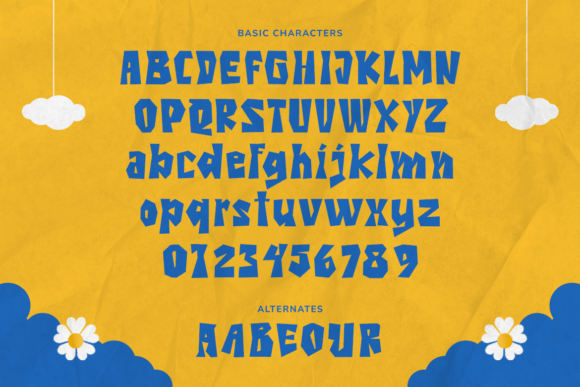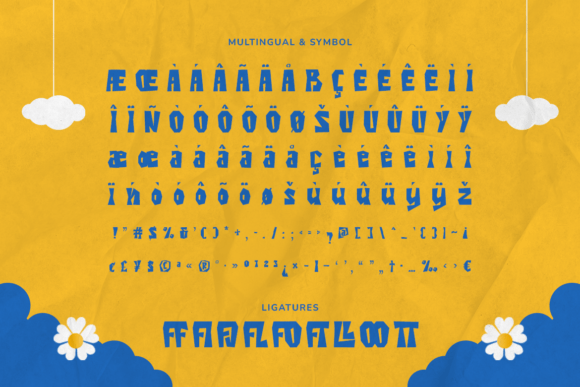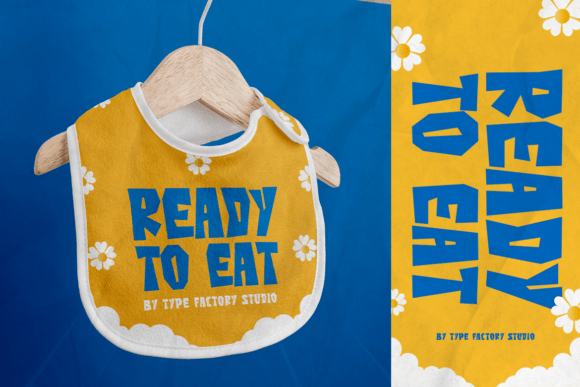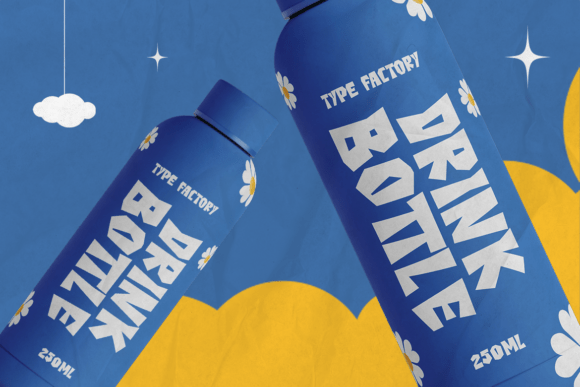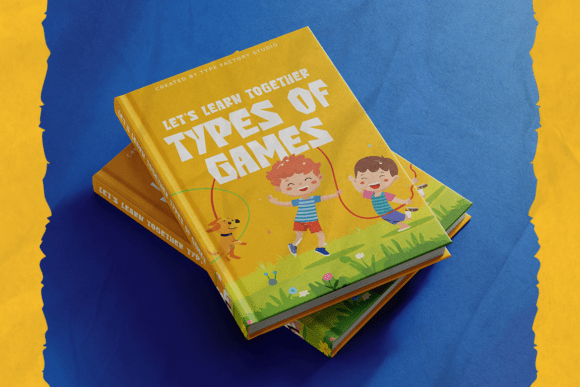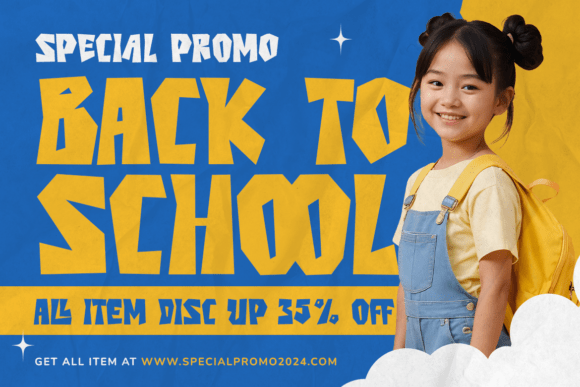
Introduction to Rooslack Font Font
Fonts play a crucial role in design, and the Rooslack Font font is a typeface that brings both character and versatility to any project. Whether you’re working on a branding project, a website, or a print design, the Rooslack Font font offers a unique style that can elevate your work.
Rooslack is a playful display typeface inspired by paper cut shapes and irregular geometric forms.
The characters feature bold and dynamic angles that create a fun and energetic visual style Designed to capture a cheerful and friendly atmosphere, Rooslack works well for childrenβs design projects, playful branding, and educational materials.
Key Features of Rooslack Font Font
Why Choose Rooslack Font Font?
The Rooslack Font font is more than just a typeface β it’s a design tool that helps you communicate your message with style and clarity. Its unique character set and versatile design make it suitable for a wide range of applications, from elegant invitations to bold headlines.
With its carefully crafted letterforms and balanced proportions, the Rooslack Font font ensures readability and visual appeal across all mediums.
What makes Rooslack Font font special?
The Rooslack Font font stands out with its unique design, exceptional readability, and versatility across various design applications.